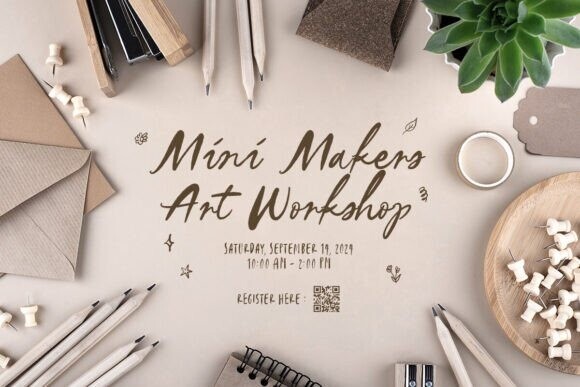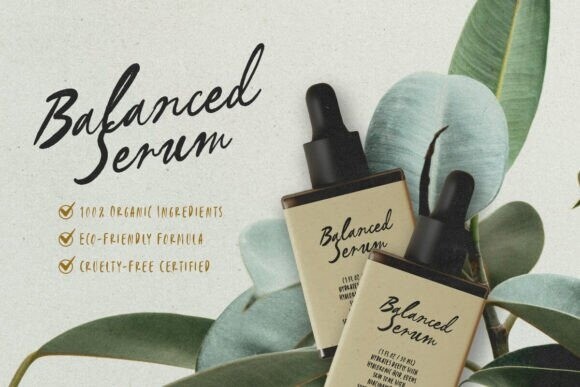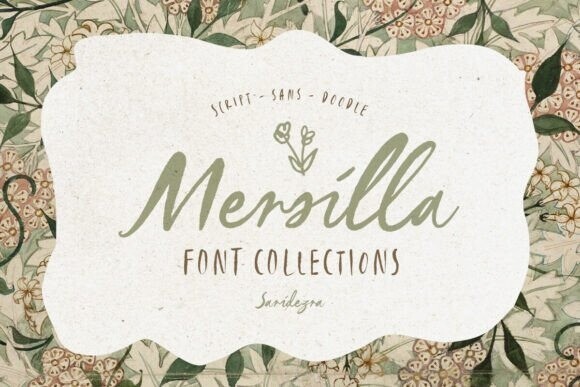
Mersilla Font
Designer: saridezra
Mersilla Font is a collection of handmade fonts featuring three styles: script, sans, and doodle. These versatile fonts can be used for various purposes, including branding, logos, handwriting, quotes, and apparel design. The doodle font includes charming hand-drawn elements like stars, bows, flowers, and frames. This font collection also supports multilingual characters, numbers, and symbols, making it perfect for any project.